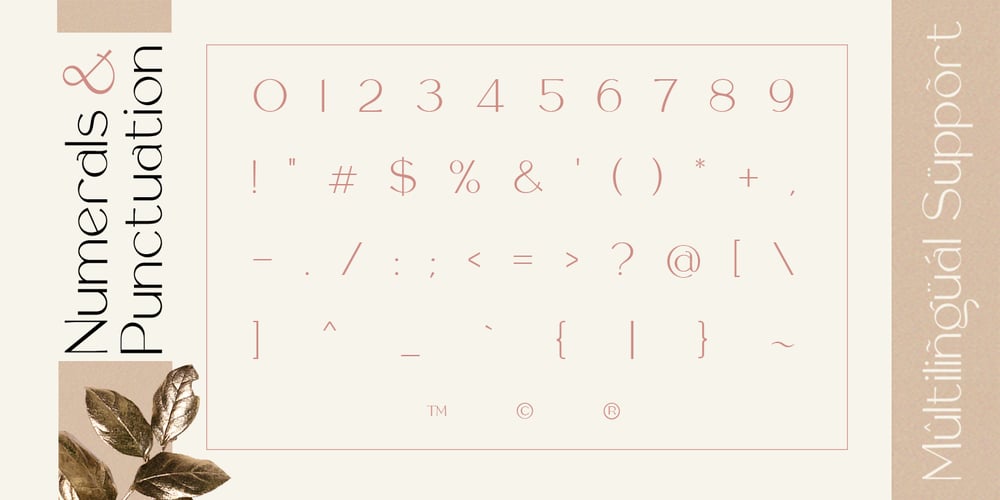
Rollgates Luxury Font Family was designed by Isfani and published by Cotbada Studio. Rollgates Luxury contains 2 styles and family package options. Rollgates Luxury is a gorgeous sans-serif typeface that is both classically elegant and modern. Create beautiful wedding invitations, use it as an elegant solution for your next magazine layout, power point or choose Rollgates Luxury for any graphics that require a sleek look with a vintage flair. Create something beautiful today with Rollgates Luxury.